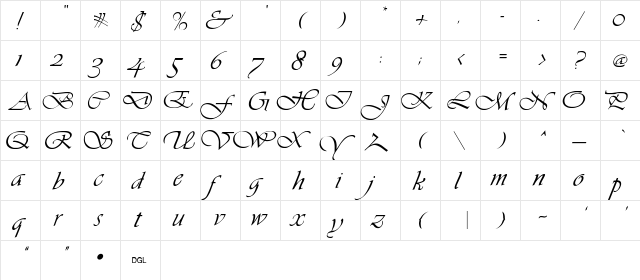
LDS Script Italic
Design Context for LDS Script Typeface
LDS Script flows with the natural rhythm of handwritten lettering, making it ideal for designs that call for warmth and personal expression.
Font Pairing: Combine LDS Script with a simple geometric sans for maximum contrast — the tension between flowing curves and clean structure is a classic typographic pairing.
Pro Tip: Use LDS Script for short runs of text — names, titles, or taglines. Extended body copy in script faces tires the eye quickly.